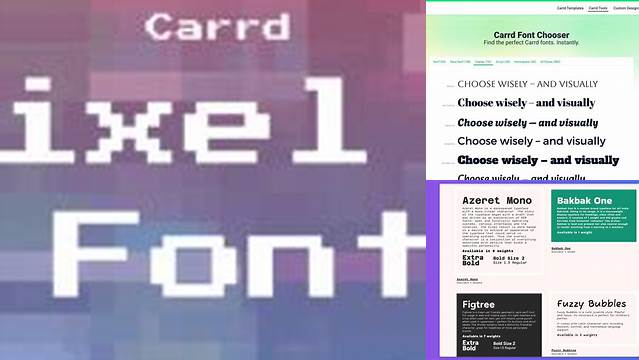
Carrd Fonts: Pixel Perfect Design & Customization
Understanding Pixel Fonts in Carrd Design
Hey guys! So, you’re diving into Carrd and want to make your site look absolutely killer, right? Well, a big part of that is nailing your typography. Today, we’re talking about pixel fonts – those awesome retro-style fonts that give your website a distinct, nostalgic vibe. When we talk about pixel fonts on Carrd, we're essentially looking at typefaces that are designed to mimic the look of old-school computer displays or early video games. Think blocky, chunky letters that are instantly recognizable. They’re not your typical sleek, sans-serif fonts. Instead, they bring a unique personality, a touch of geeky charm, or even a strong, minimalist aesthetic depending on how you use them. The beauty of using pixel fonts on Carrd is that they can make your site stand out in a sea of sameness. It’s a way to inject some serious character and make your page memorable. But it’s not just about picking a cool-looking font; it’s about understanding how these fonts work, where to find them, and how to implement them effectively within the Carrd platform. We’ll get into the nitty-gritty of how to find and upload custom fonts later, but first, let’s just appreciate the aesthetic. Pixel fonts, by their very nature, are low-resolution by design. This isn't a flaw; it's their defining feature! They often have sharp edges and a grid-like structure, which can be incredibly appealing for certain types of projects. Whether you're building a portfolio for a game developer, a fan page for an 8-bit enthusiast, or just want a quirky, eye-catching headline, pixel fonts offer a fantastic solution. They evoke a sense of history and authenticity, connecting with users on an emotional level. So, buckle up, because we’re about to explore the wonderful world of pixel fonts and how you can make them sing on your Carrd site!
The Allure of Retro Typography
There’s something undeniably cool about retro typography, guys, and pixel fonts are a huge part of that. Think about the golden age of video games – Atari, early Nintendo, the arcade era. The visual language of that time was defined by pixels. Those chunky, charming letters weren't just a limitation of technology; they became an aesthetic. And that aesthetic has a powerful pull even today. When you incorporate pixel fonts into your Carrd site, you’re tapping into that nostalgia. You’re creating a visual experience that resonates with people who grew up with these games or appreciate the distinct look. It’s a way to convey a sense of fun, playfulness, and even a bit of rebellion against the ultra-modern, sometimes sterile, digital design trends. Beyond the nostalgia factor, pixel fonts offer a unique clarity and boldness. Their structured, grid-based design can make text incredibly legible at certain sizes, especially for headings and short bursts of information. They have a strong graphic quality that can add visual weight and impact. Imagine a bold pixel font as the headline for your blog post about vintage technology or as the title for your indie game’s landing page – it just fits. The allure lies in their simplicity and their inherent connection to the digital roots of our modern world. They remind us where we came from digitally, and that’s a powerful narrative to weave into your online presence. Plus, let’s be honest, they just look awesome. They’re distinctive, memorable, and give your Carrd site a personality that’s hard to replicate with more conventional fonts. It’s like wearing a vintage band t-shirt in a sea of plain tees – it signals a specific taste and a connection to something authentic and enduring. So, the next time you’re thinking about fonts for your Carrd site, don’t shy away from the pixelated. Embrace the retro, and let it give your project that extra spark.
Choosing the Right Pixel Font for Your Carrd Project
Alright, so you’re sold on the pixel font vibe for your Carrd site. Awesome! But here’s the thing, not all pixel fonts are created equal, and choosing the right one is crucial for making your site look polished, not just retro. Think of it like picking the perfect accessory for an outfit – it needs to complement, not overpower. First off, consider the purpose of your Carrd site. Are you going for a super playful, almost cartoony look? Then maybe a wider, more rounded pixel font would be perfect. If you’re aiming for a more serious, minimalist, or even a cyberpunk aesthetic, a sharper, more condensed pixel font might be the way to go. Don’t just grab the first pixel font you see! Check out the different weights and styles available. Some pixel fonts have regular, bold, and even italic versions, which can be super helpful for adding hierarchy and emphasis to your text. Others are strictly display fonts, meaning they look best in large sizes and aren’t meant for body text. The key here is readability. Even the coolest pixel font is useless if your visitors can’t easily read what you’re saying. Test your chosen font at different sizes. What looks great as a giant H1 heading might become a jumbled mess when shrunk down for a paragraph. Carrd’s font settings allow you to control size, line height, and letter spacing – use these tools! Tweaking these can often improve the legibility of even challenging fonts. Also, think about the context of your content. If you’re writing a serious piece about digital art history, a bubbly pixel font might be a bit jarring. Conversely, if your site is about indie game development, a gritty, retro pixel font could be chef’s kiss. Finally, browse around for inspiration! Look at other sites using pixel fonts. What works? What doesn’t? See how different designers have integrated them. You can often find great resources for pixel fonts on sites like Google Fonts (though less common for pure pixel styles), DaFont, or Font Squirrel. Remember, the goal is to make your Carrd site unique and engaging, and the right pixel font is a powerful tool to achieve just that. It’s all about balance and intention, guys.
Finding Free Pixel Fonts for Your Carrd Site
Finding awesome, free pixel fonts to jazz up your Carrd site doesn't have to be a treasure hunt that ends in frustration. Luckily, the internet is brimming with resources where designers and font enthusiasts share their creations. One of the most popular and reliable places to start is Google Fonts. While it might not be your first stop for pure pixel fonts, you can sometimes find geometric sans-serifs that have a pixel-like quality or fonts that were inspired by pixel art. Definitely worth a browse! Then there are dedicated font repositories like DaFont. This is a goldmine, guys! They have thousands of fonts, and if you navigate to their